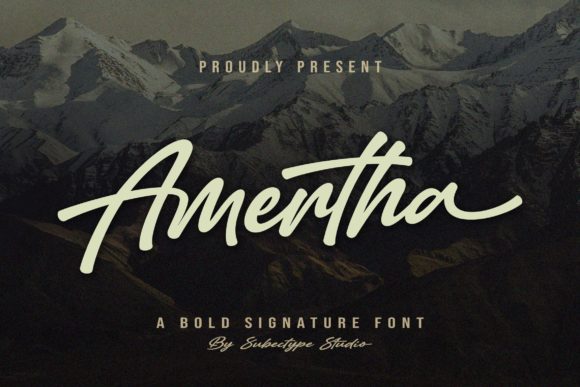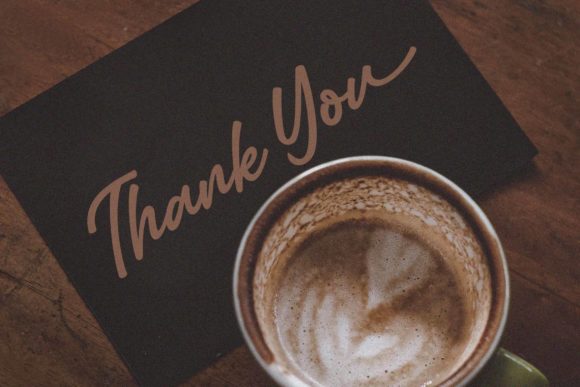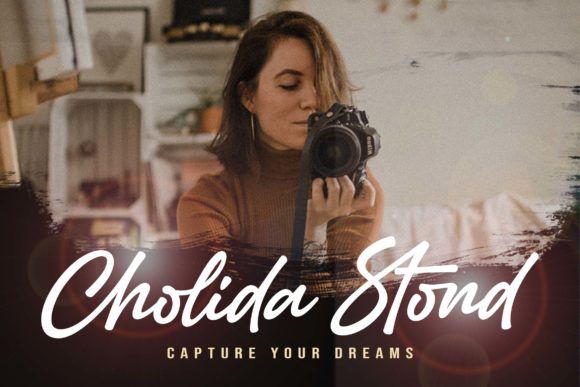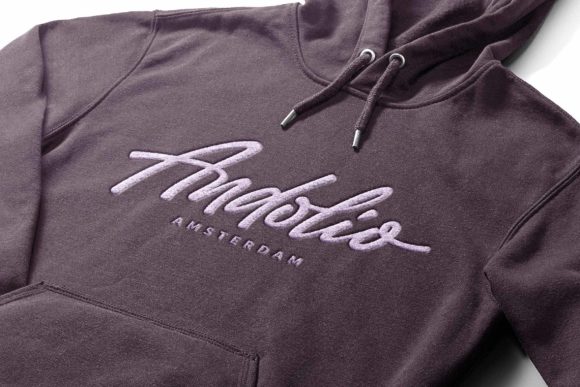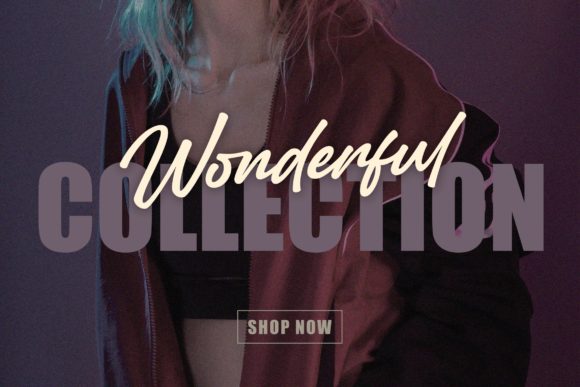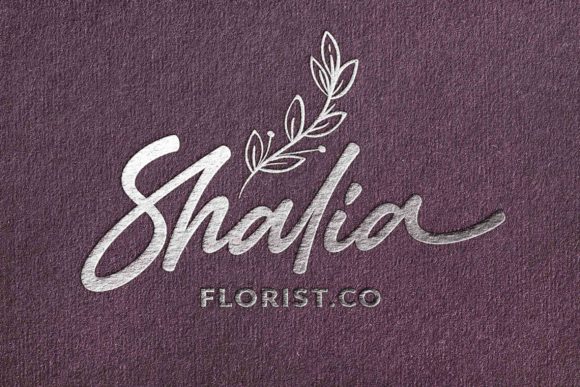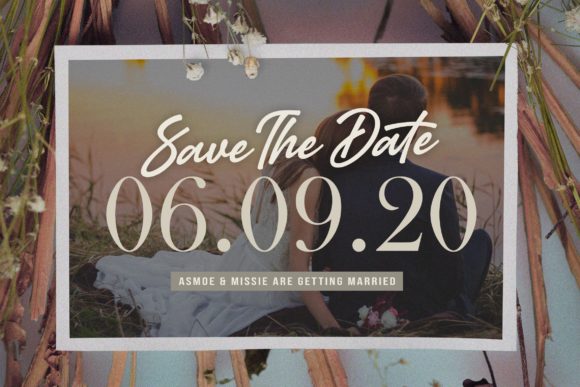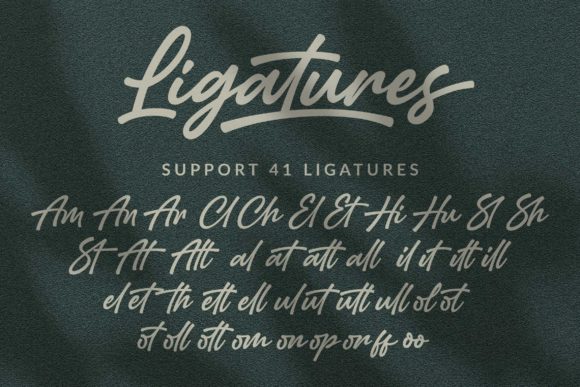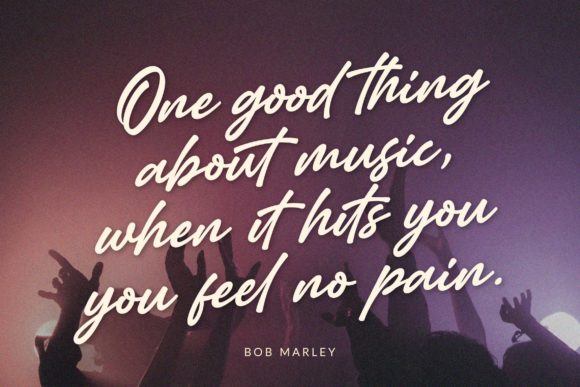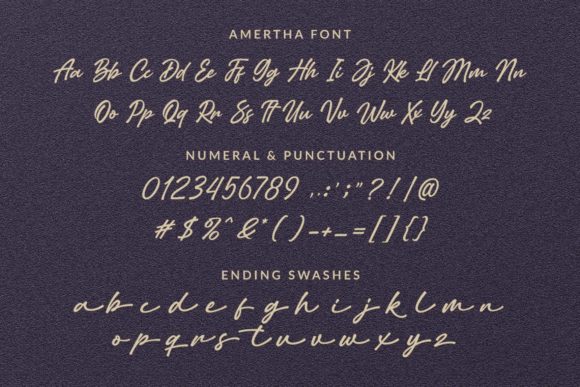
Amertha Font
About Amertha Font
Amertha is an incredibly distinct handwritten font, created with the help of a brush pen. It is PUA encoded which means you can access all of the glyphs and swashes with ease! It features a varying baseline, smooth lines, gorgeous glyphs and stunning alternates. Fall in love with its incredibly versatile style and use it to create gorgeous wedding invitations, beautiful stationary art, eye-catching social media posts, and much more!